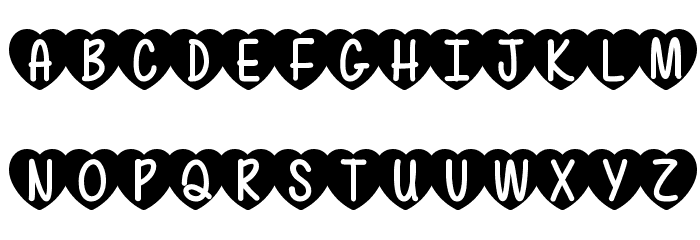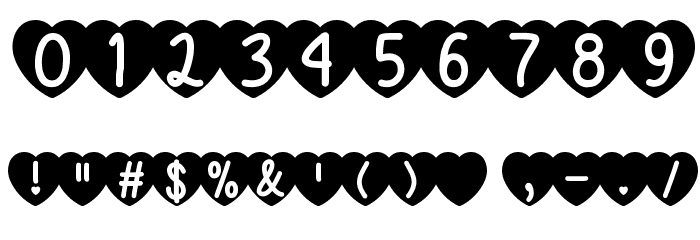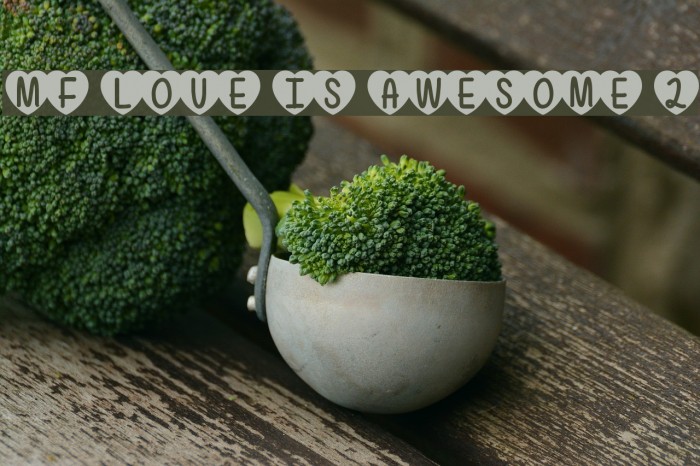
Mf Love Is Awesome 2 Font
This playful and whimsical font features characters enclosed within heart shapes, creating a charming and romantic aesthetic. The letters are bold and rounded, with a handwritten style that adds a personal touch. The uppercase and lowercase letters are consistent in style, maintaining a cohesive look throughout. The numbers and special characters are also designed within heart shapes, ensuring uniformity. This font is perfect for projects that require a fun and loving theme, such as Valentine's Day cards, wedding invitations, or romantic social media graphics.
A playful font with characters enclosed in heart shapes, ideal for romantic themes.
- Font: Mf Love Is Awesome 2
- Proposed Projects: Valentine's Day cards, wedding invitations, romantic social media graphics, love-themed posters.
- Overall Style: Playful, Romantic
- Use Case: Headlines, Logos, Invitations